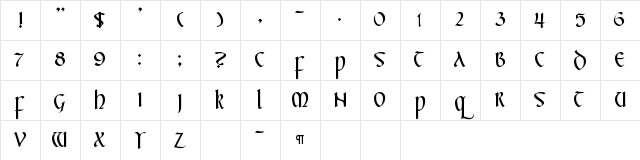
CallifontsF57TrueType Regular
Design Context for CallifontsF57TrueType
CallifontsF57TrueType is a composed and adaptable typeface that performs quietly and consistently across a wide range of design contexts.